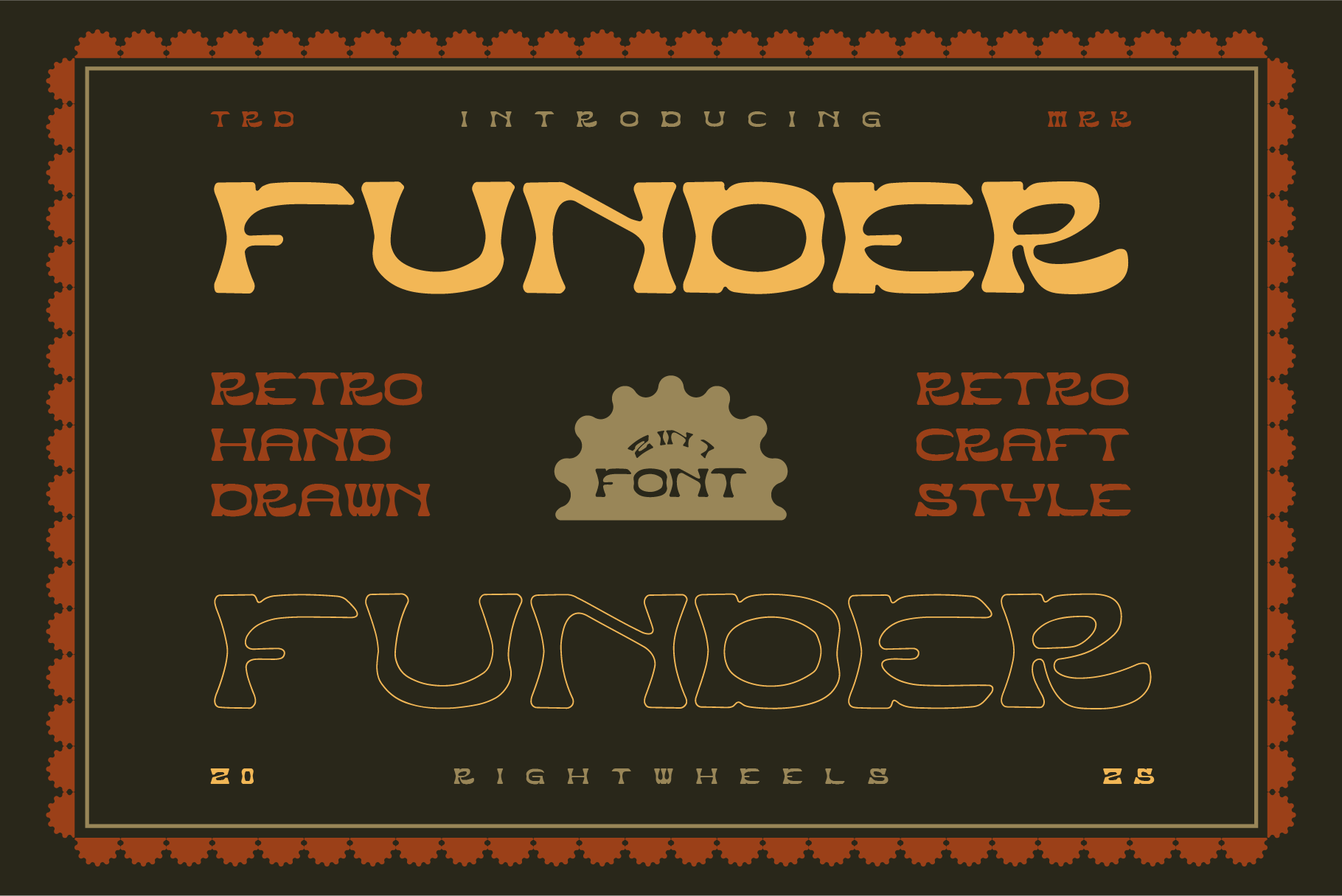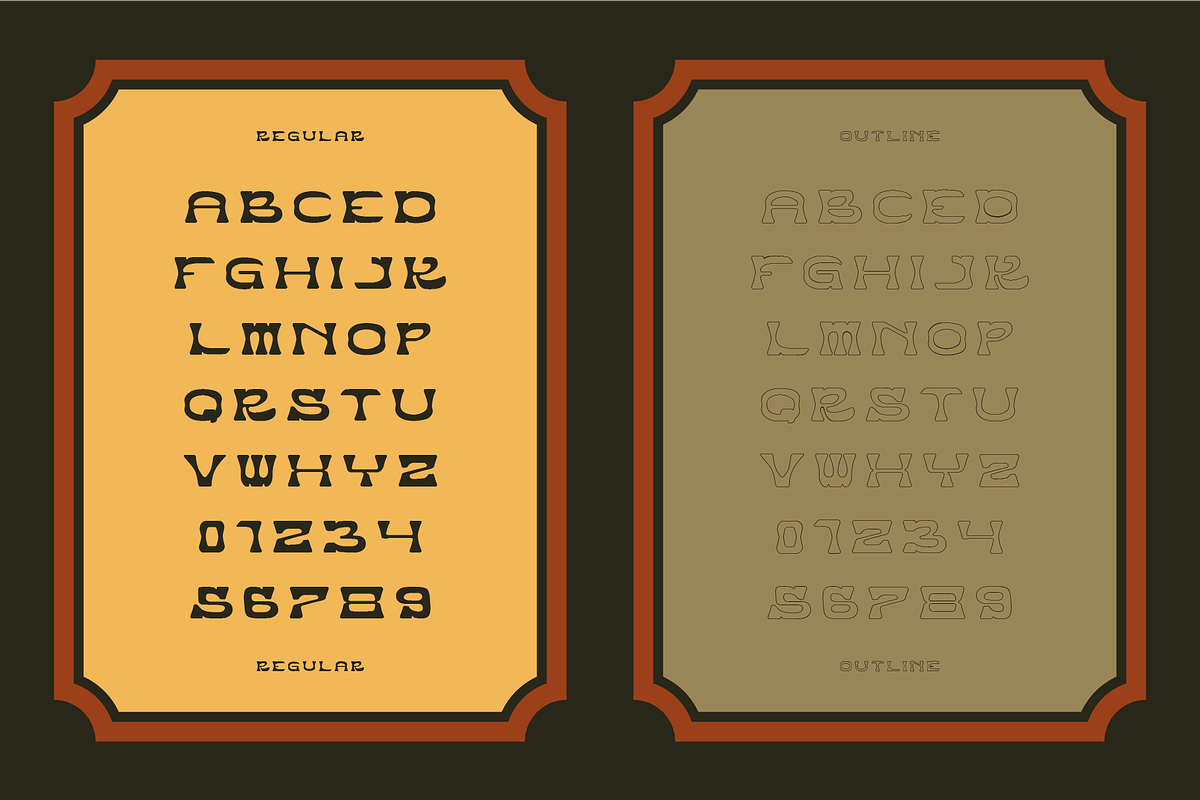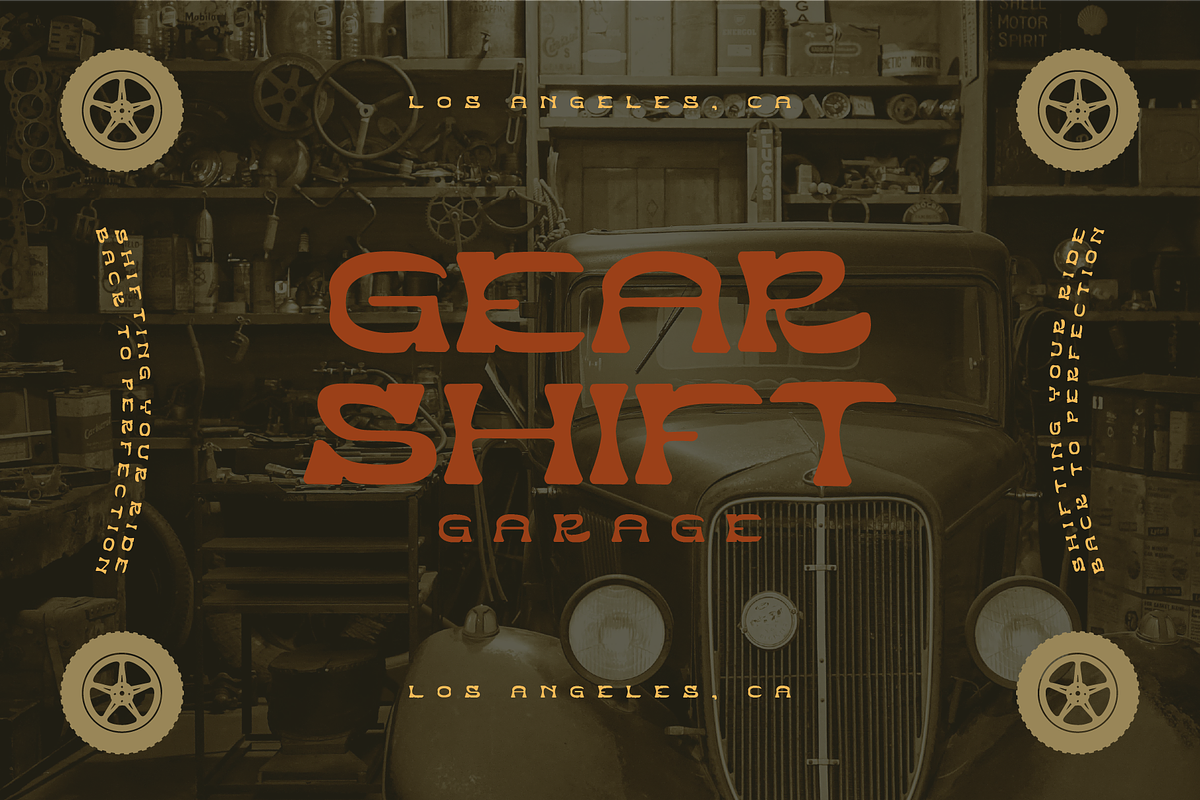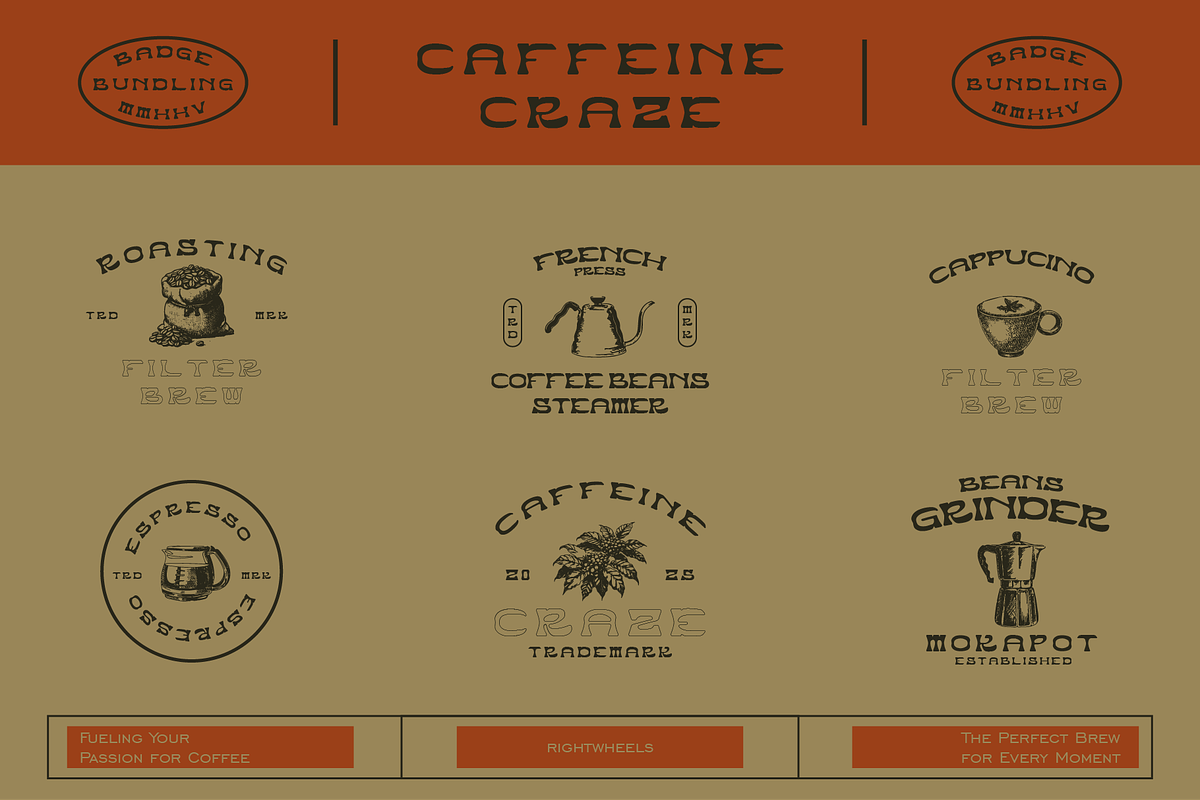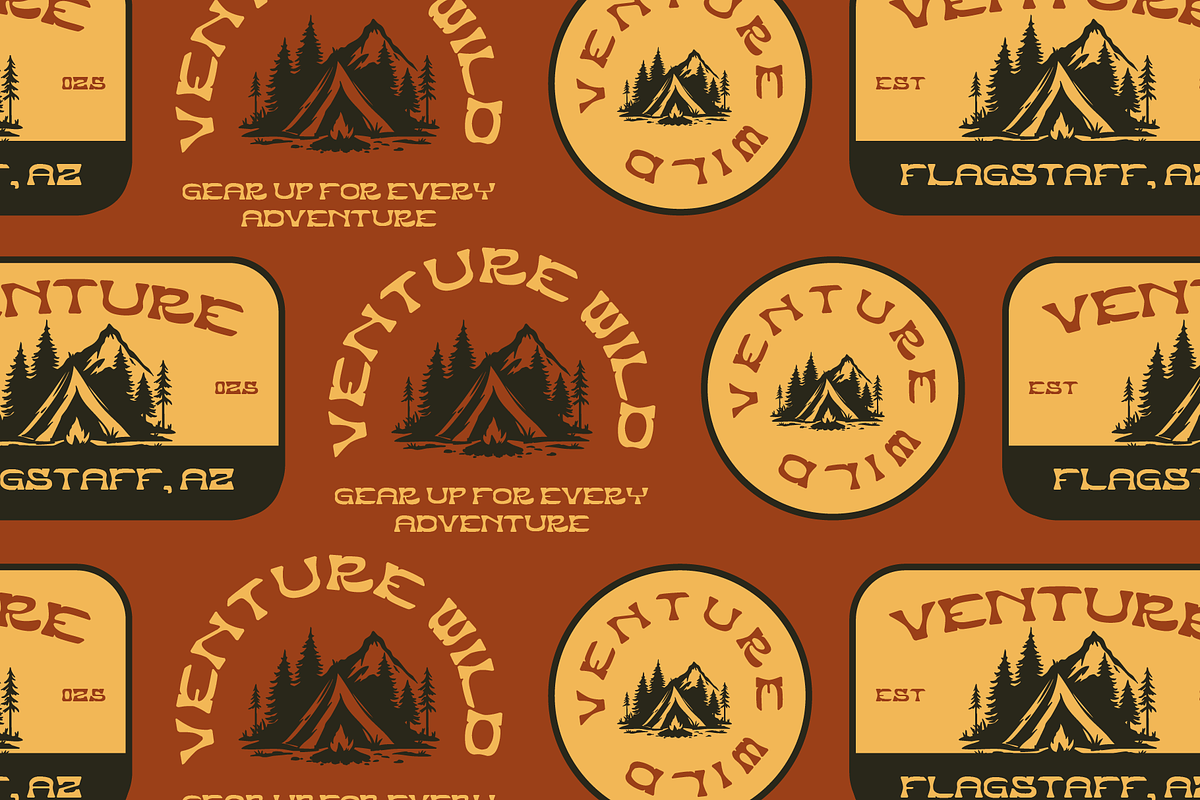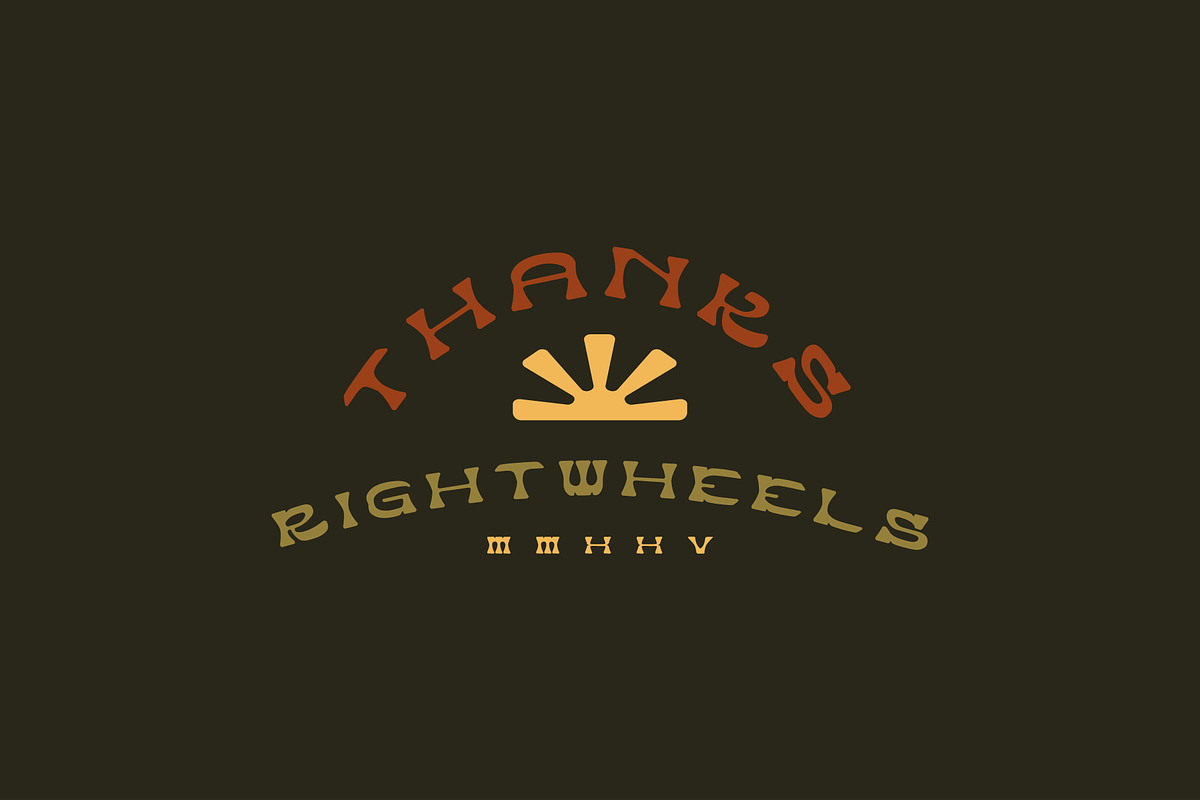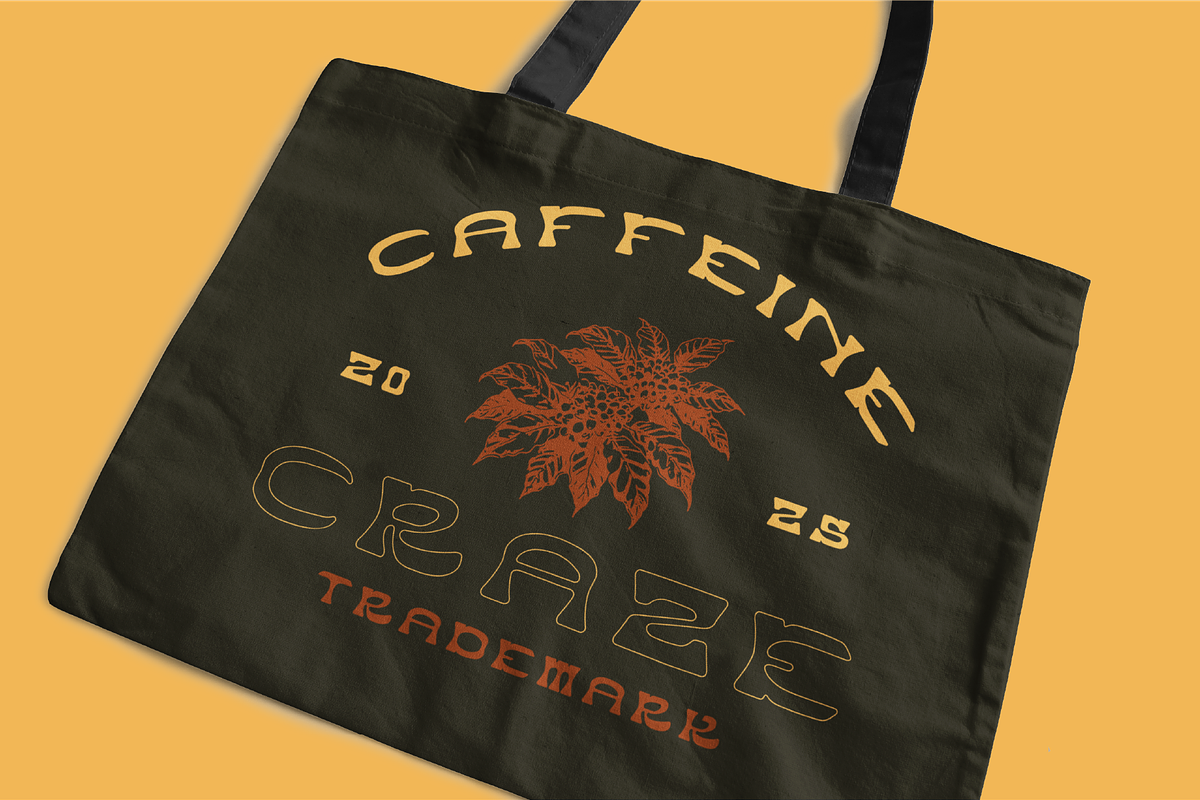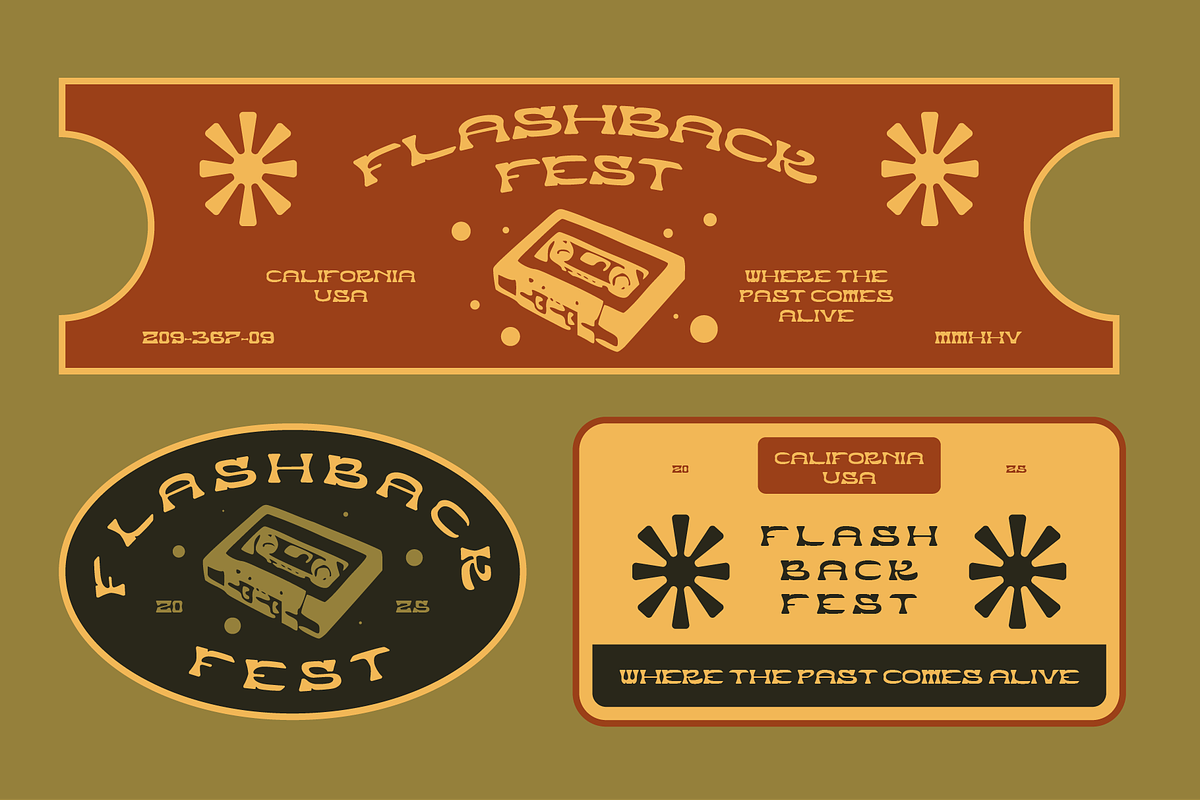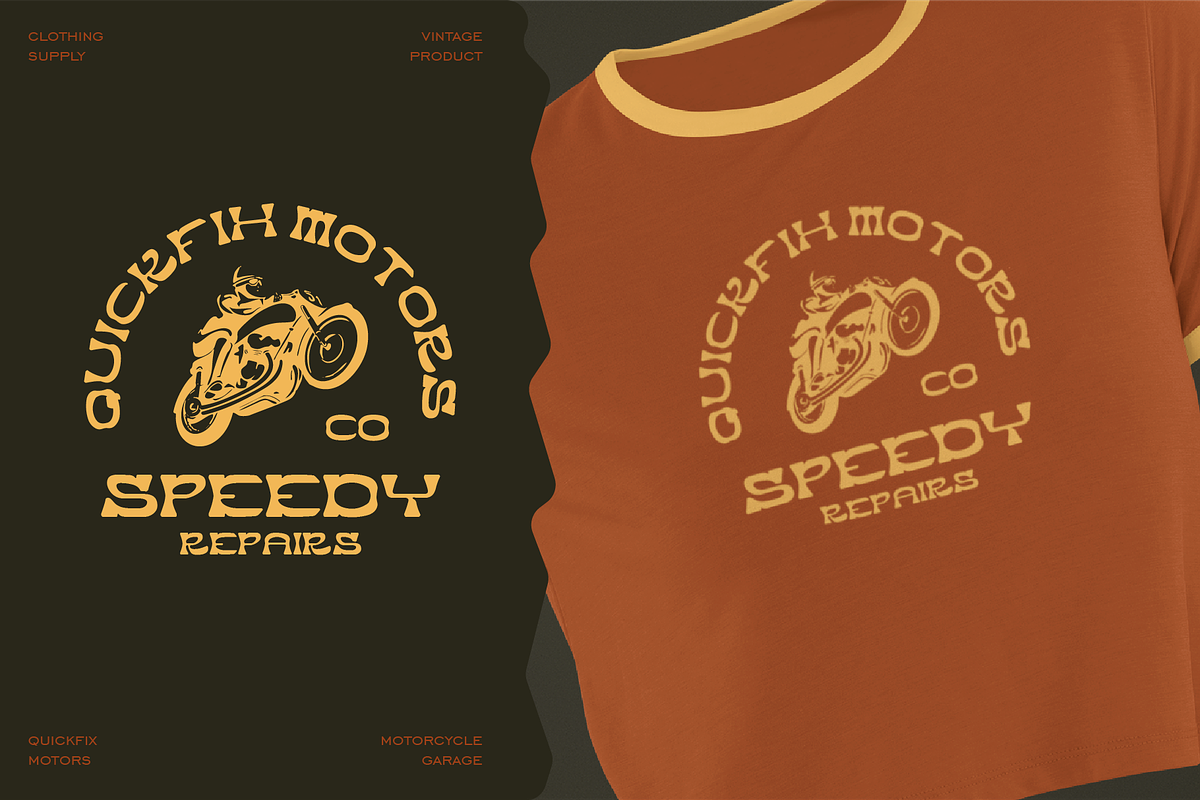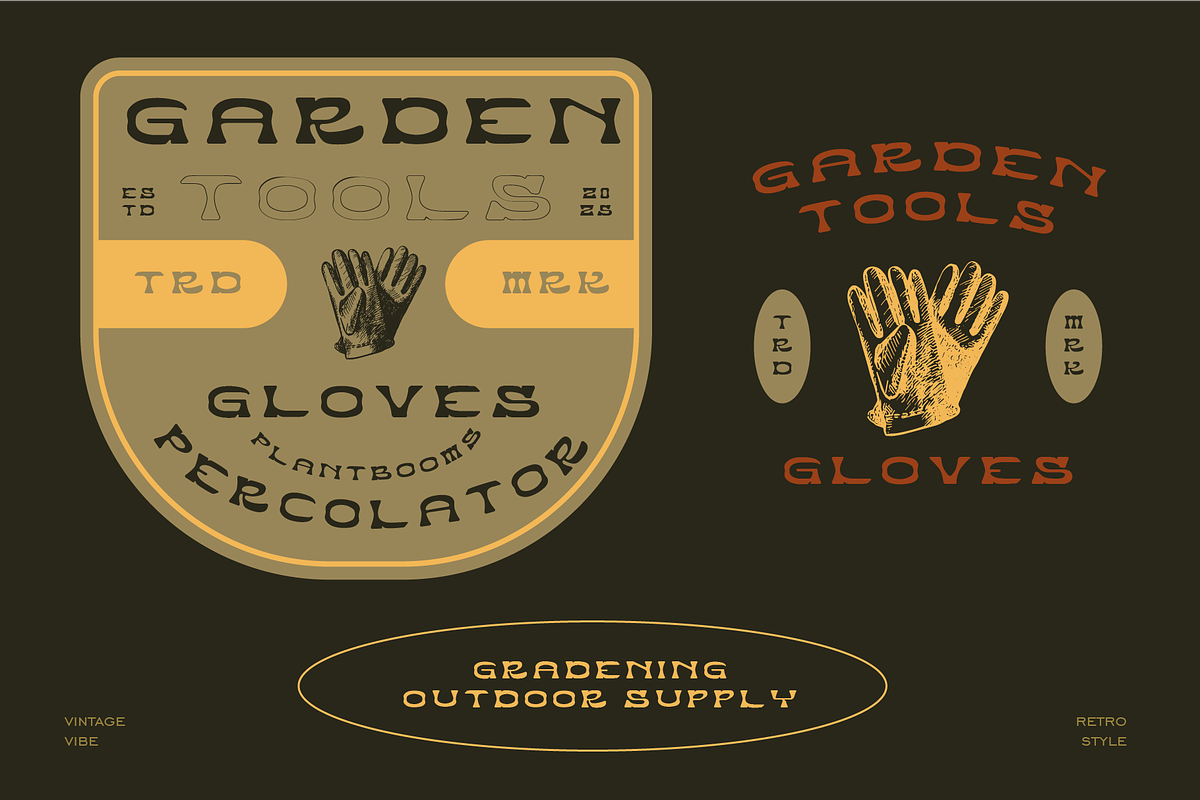
FUNDER - Vintage Handdrawn Font
Funder is a bold and striking retro font that channels the energetic spirit of vintage design. With its sharp angles, strong lines, and unique character shapes, Funder brings a powerful yet playful vibe to any project. The font's dynamic style captures the essence of the past, yet maintains a fresh, modern appeal, making it ideal for everything from retro branding to eye-catching headlines. Perfect for designs that want to make a bold statement, Funder combines the charm of classic retro typography with the boldness of contemporary aesthetics, making it a go-to choice for designs that need to stand out.